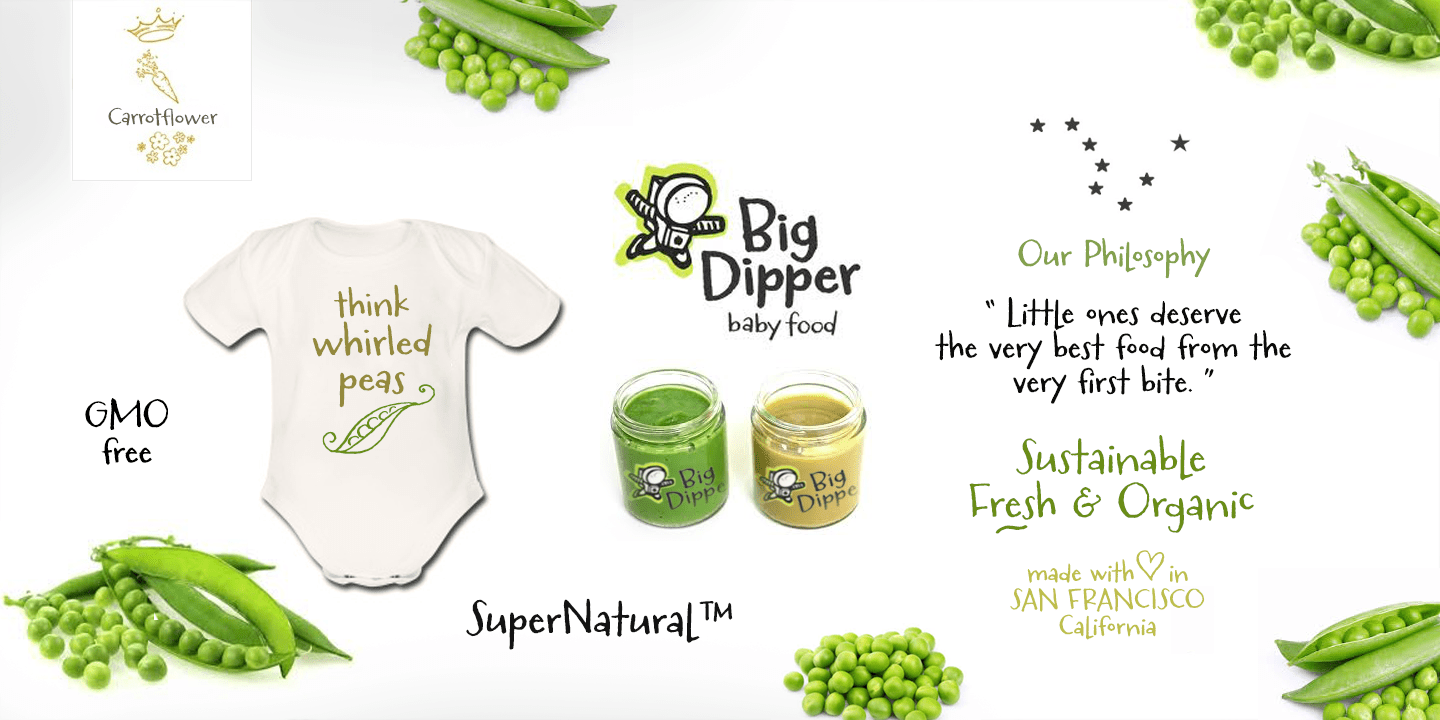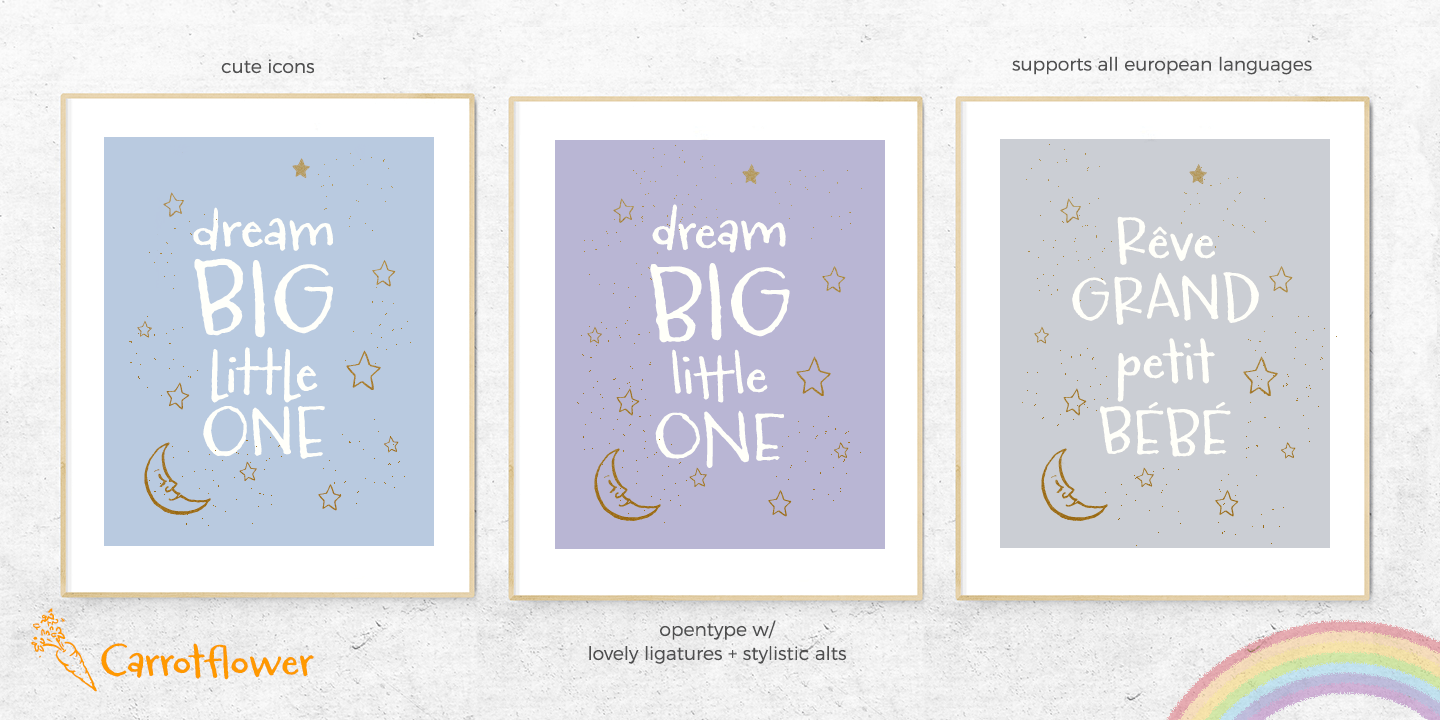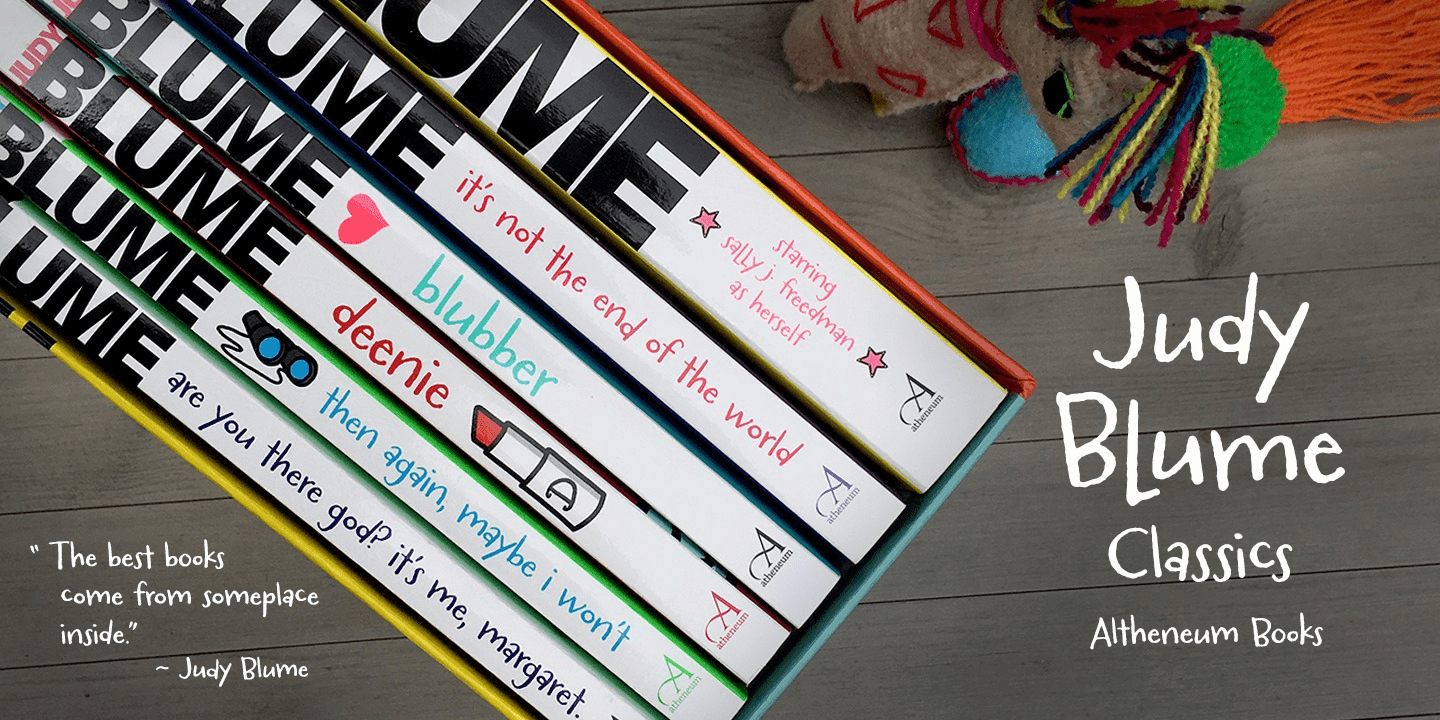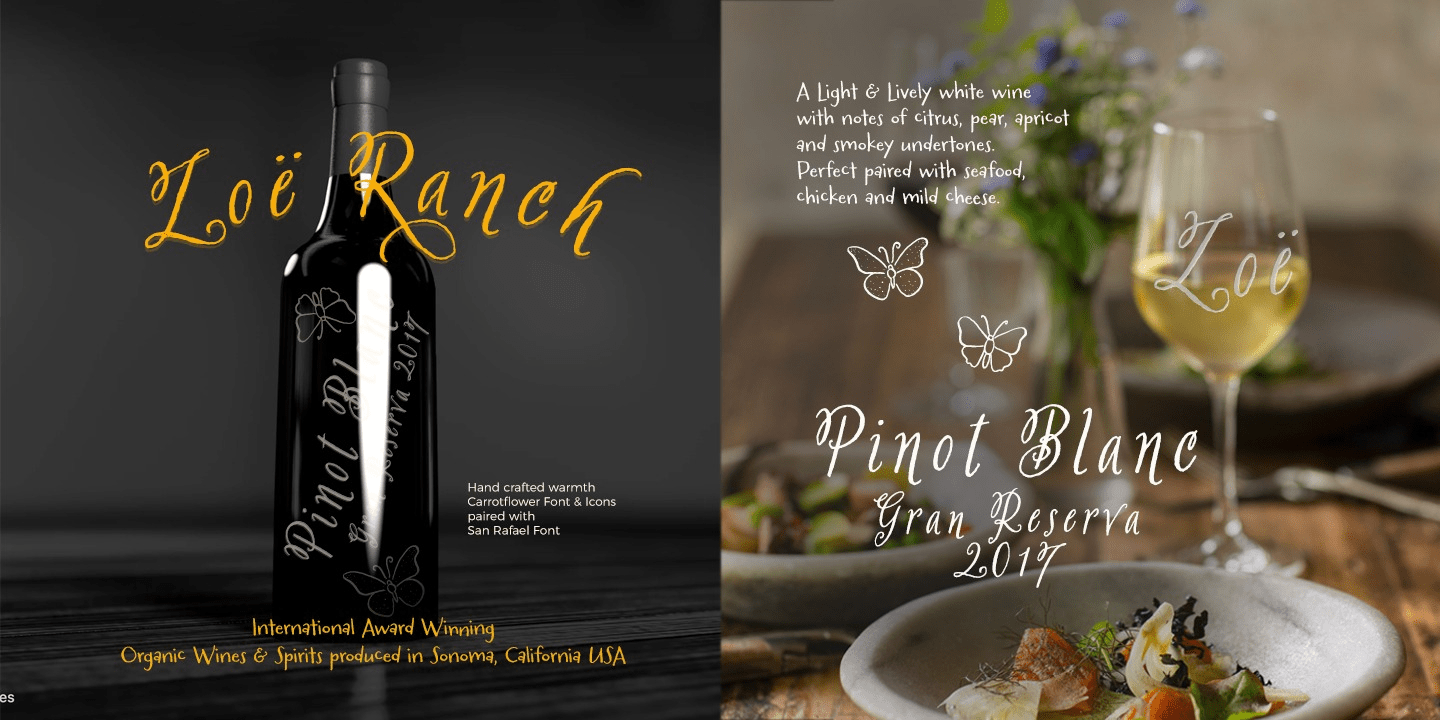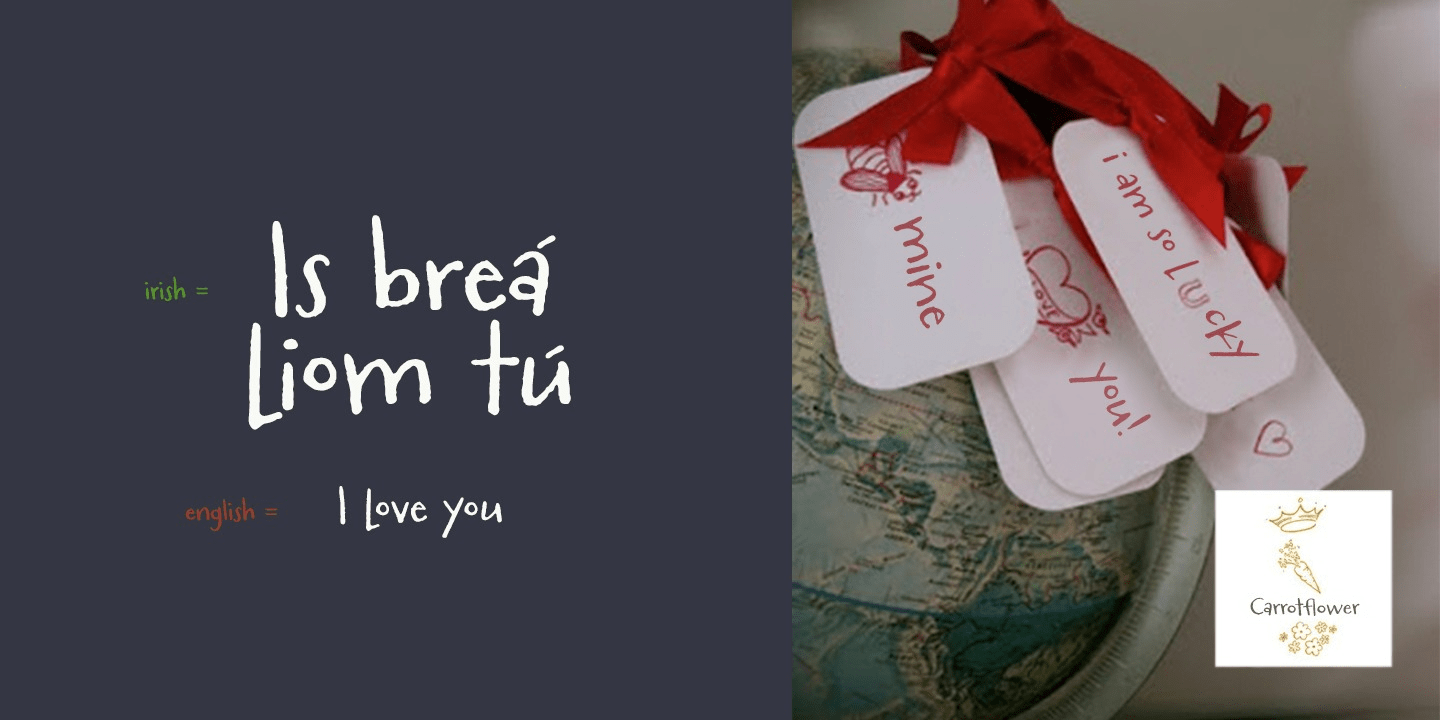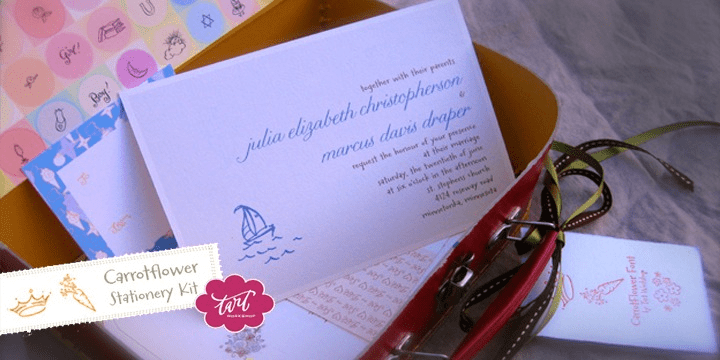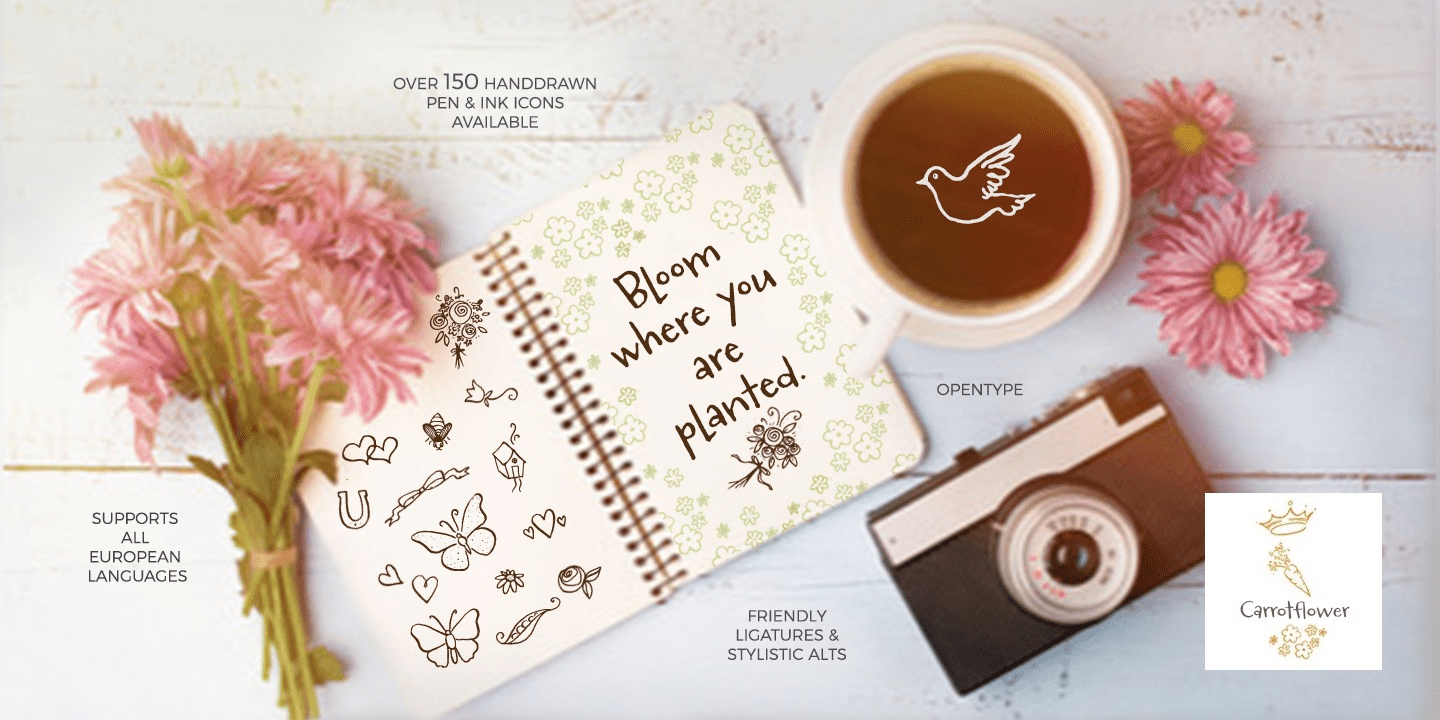
Carrotflower
About Carrotflower
With childlike simplicity and incredible versatility, Carrotflower is King. Drawn from one of my most commonly utilized lettering styles, it\’s quiet unfussy nature lends itself well to birth announcements, wedding invitations, birthday parties, bar &…